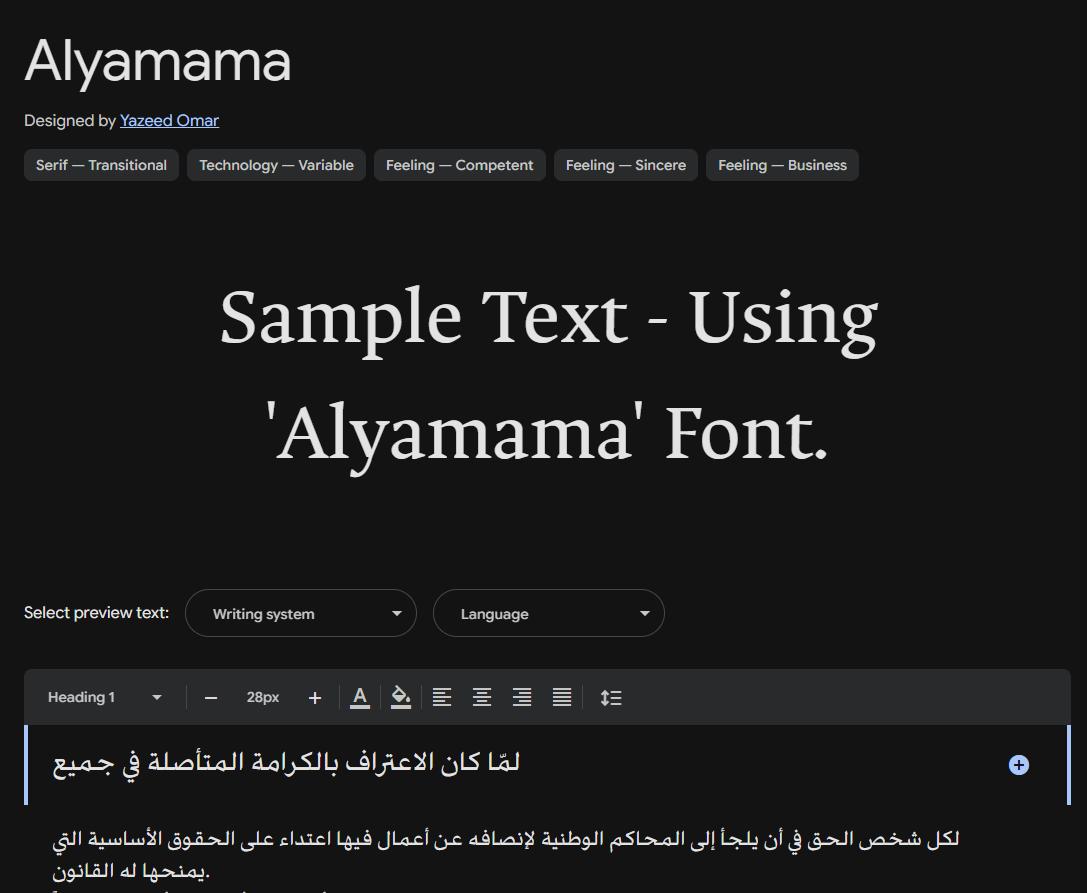
Alyamama, a contemporary typeface engineered by Yazeed Omar, leverages the efficiency of variable font technology through a single interpolation axis, typically focused on weight modulation to optimize responsive layouts and digital legibility. By integrating precise mathematical deltas within its glyph construction, this single-axis design minimizes file size while offering a fluid continuum of stroke thicknesses, bridging the gap between traditional calligraphic influences and the rigid demands of modern UI/UX environments. The implementation of this OpenType-variable specification ensures that Alyamama maintains structural integrity and semantic clarity across diverse viewport resolutions, making it a sophisticated tool for designers seeking granular control over typographic hierarchy without the performance overhead of multiple static font files.
The Alyamama font family emerges as a sophisticated synthesis of Transitional Serif architecture and cutting-edge Variable font technology, engineered to bridge the gap between historical typographic weight and modern digital fluidity. By utilizing a continuous axis for weight and optical sizing, Alyamama optimizes legibility through precise stroke modulation and vertical stress, projecting an aura of unwavering competence and business-grade authority. This typeface transcends static design limitations by offering a multifaceted glyph set that maintains a sincere, approachable resonance, ensuring that its semantic delivery remains as authentic as its technical framework is robust. As a high-performance tool for corporate identity, Alyamama leverages fluid interpolation to maintain structural integrity across diverse displays, effectively harmonizing the traditional elegance of refined serifs with the pragmatic demands of contemporary, high-stakes communication.
While Alyamama showcases sophisticated calligraphic fluidity and seamless variable weight interpolation along its single axis, it remains fundamentally unsuitable for high-density technical environments or micro-typography where absolute legibility at minimal point sizes is critical. The typeface's expressive stroke modulation and elegant terminal flourishes, meticulously crafted by Yazeed Omar, create significant visual complexity that can lead to character blurring and reduced glyph clarity when subjected to low-resolution rasterization or compact UI constraints. Consequently, in industries requiring error-free data processing-such as aeronautical instrumentation, complex financial spreadsheets, or legal fine print-the inherent stylistic DNA of Alyamama prioritizes aesthetic resonance over the clinical, utilitarian legibility required to prevent cognitive fatigue and ensure rapid information retrieval across diverse digital displays.
Alyamama is highly versatile, making it ideal for modern editorial layouts, luxury branding, and contemporary corporate identities. Its geometric structure and high-contrast strokes achieve a high legibility index in minimalist UI/UX environments where negative space is prioritized.
The family features a harmonious multiscript design that seamlessly integrates Arabic Kufi-inspired forms with balanced Latin letterforms. The font utilizes synchronized vertical metrics and baseline alignment to ensure consistent optical sizing across varied Unicode blocks for bilingual typesetting.
The Alyamama font family offers a comprehensive range of weights, typically spanning from Thin to Black, to provide extensive typographic hierarchy. With nine distinct weight classes, designers can leverage precise CSS font-weight mapping to maintain visual weight consistency across diverse rendering engines.
While its distinctive personality shines in bold headlines, the family is engineered with optimized letter spacing to remain legible in shorter body paragraphs. Testing reveals that the Display variants maintain superior glyph definition at 36pt+, while the Text cuts utilize ink traps to prevent fill-in during high-speed printing.
Alyamama includes a robust set of OpenType features such as discretionary ligatures, stylistic alternates, and localized forms for specific regions. The integration of GPOS and GSUB tables allows for fluid contextual shaping, which is critical for the complex cursive connections found in Arabic script architecture.
The font family performs exceptionally well in mobile interfaces due to its clean lines and open counters that enhance readability on small screens. Its high x-height and generous side-bearings contribute to a lower cognitive load, as measured by eye-tracking data in high-density pixel environments.
Alyamama pairs effectively with neutral, humanist sans-serifs that share similar geometric proportions and stroke modulation. Cross-family pairing with fonts like Montserrat or Helvetica Neue works well because they match Alyamama's cap-height and aperture width, ensuring a unified visual language.
Its bold structure and clear outlines make Alyamama an excellent choice for wayfinding systems and large-scale architectural signage. The font's geometric stability minimizes halation effects under harsh LED lighting, preserving the integrity of the stroke contrast at long viewing distances.
The font is meticulously hinted and optimized for high-resolution Retina and 4K displays to ensure crisp edge definition. Advanced sub-pixel rendering techniques utilize the font's precise point placement to prevent anti-aliasing artifacts on high-DPI (Dots Per Inch) hardware.
Alyamama provides multiple stylistic sets that allow designers to toggle specific character traits to match a brand's unique voice. By activating the 'ss01' or 'ss02' features, users can access alternative terminal treatments that shift the aesthetic from strictly geometric to a more organic calligraphic feel.